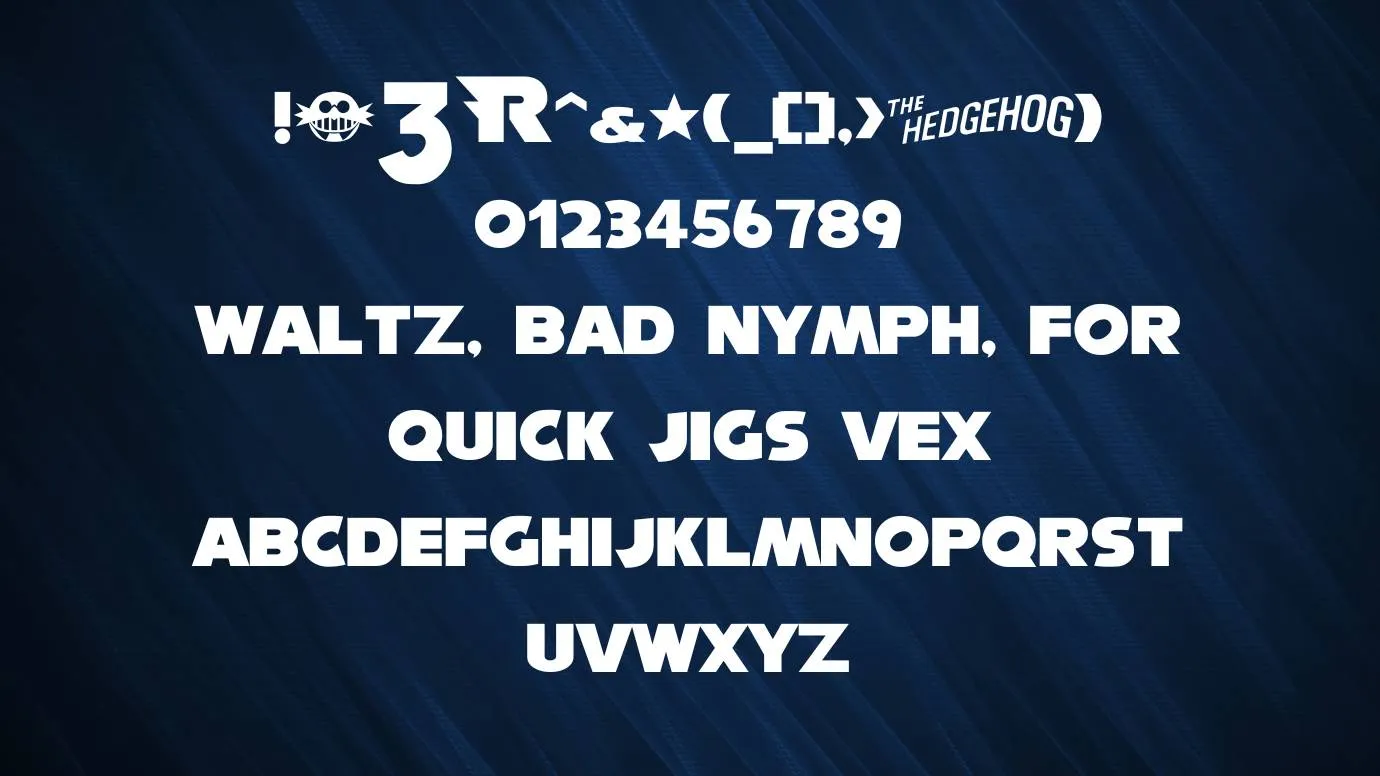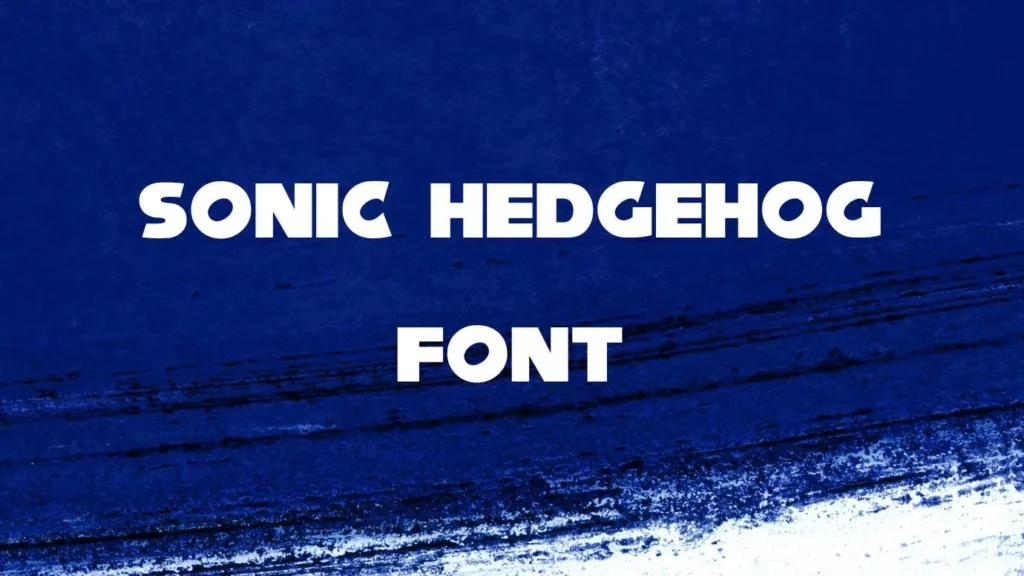
Sonic Hedgehog Font is a logo style that is designed by Katharine Worsley. With this font, you will be able to create beautiful typography and decorative designs. It is also possible to pair the typeface with its matching fonts.
This typeface is popular worldwide because of its beautiful shape. So, you should have tried it and had fun. You can use this attractive typeface for crafting unique business cards and website titles. Stylish designs are best created with this font with gorgeous features.
View of Sonic Hedgehog Font
Why Sonic Hedgehog Font is so Popular?
This typeface is normally used for making captions, brief idioms, and labels. So, whether you’re designing a party celebration invite or a t-shirt, this font is a tremendous choice. This font is a tremendous preference in case you’re searching for a unique and festive font.
The typeface has come to be an iconic style it has a beautiful design. It’s often used for branding and publicity and marketing purposes. Sonic Font is the right choice for creating invitations, flyers, and posters.
The closest font to this typeface is avengers logo font. You can also utilize this typeface for developing invitations, blog designs, advertising outlines, branding, artwork, card designs, unique events, birthday card designs, pillow designs, mug designs, and so on.
What type of textual style is Sonic Hedgehog?
This gorgeous typeface has a place in the category of fancy font.